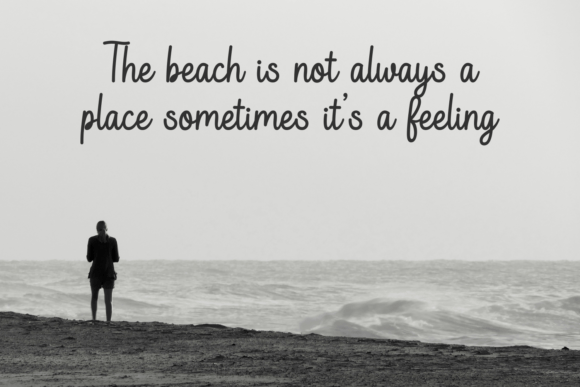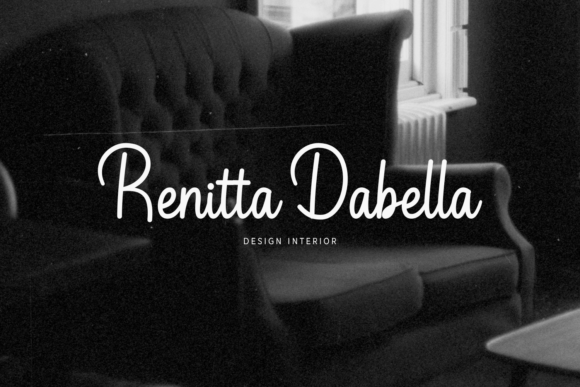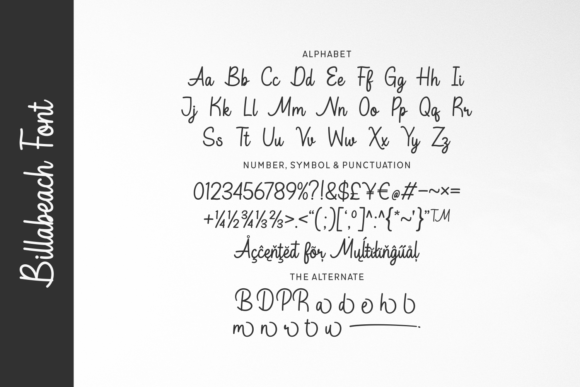
Billabeach Font
Billabeach is a laid-back monoline script font with a breezy, handwritten vibe—perfect for beachy brands, surf apparel, summer flyers, or relaxed social media content. Its smooth, rounded strokes and playful swashes bring a casual charm that feels both modern and approachable. With Billabeach, every word feels like it’s written in the sand, effortlessly stylish and full of personality.